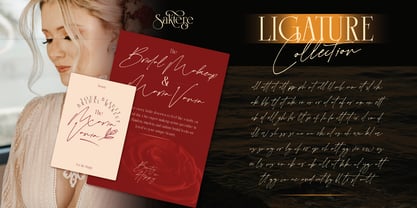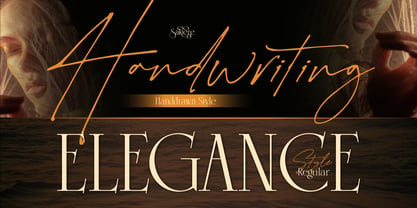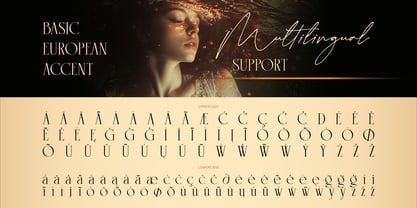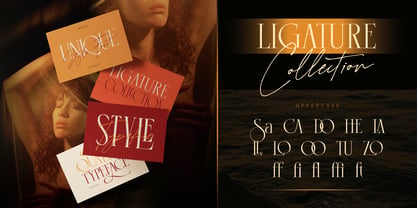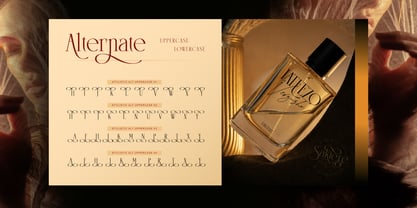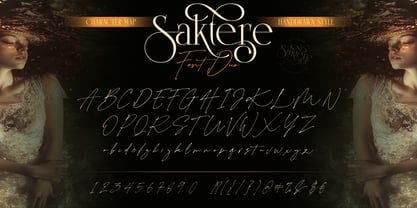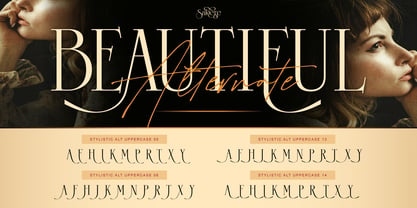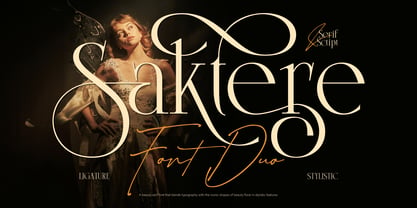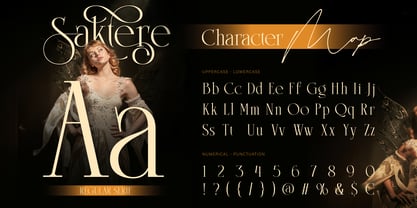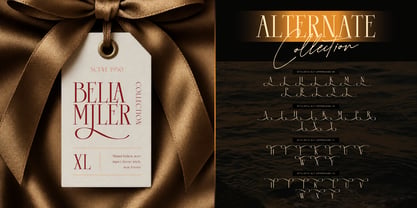
Saktere
La famille de polices Saktere a été conçue par Eric Kurniawan et publiée par Burntilldead. Saktere contient 2 styles et options de package familial. En savoir plus sur cette famille
À propos de la famille
Unveil timeless elegance with Saktere, an exquisite font duo crafted by Burntilldead Studio. Combining a high-contrast beauty serif with an expressive, hand-drawn signature script, Saktere offers a perfectly balanced typographic pair designed for high-end creative projects.
The serif typeface blends classic letterforms with iconic floral-inspired stylistic swashes, dramatic loops, and unique ligatures. Paired with its flowing, organic script companion, Saktere gives you complete freedom to create romantic, editorial-ready layouts, luxury brand identities, and stunning visual hierarchies in minutes.
Perfect for:
• Luxury Brand Identity & Logo Design
• Bridal Makeup, Wedding Stationery & Invitations
• Fashion Magazine Layouts & Editorial Covers
• Perfume Bottles, Cosmetics & Product Packaging
• Romantic Quotes, Social Media & Moodboards